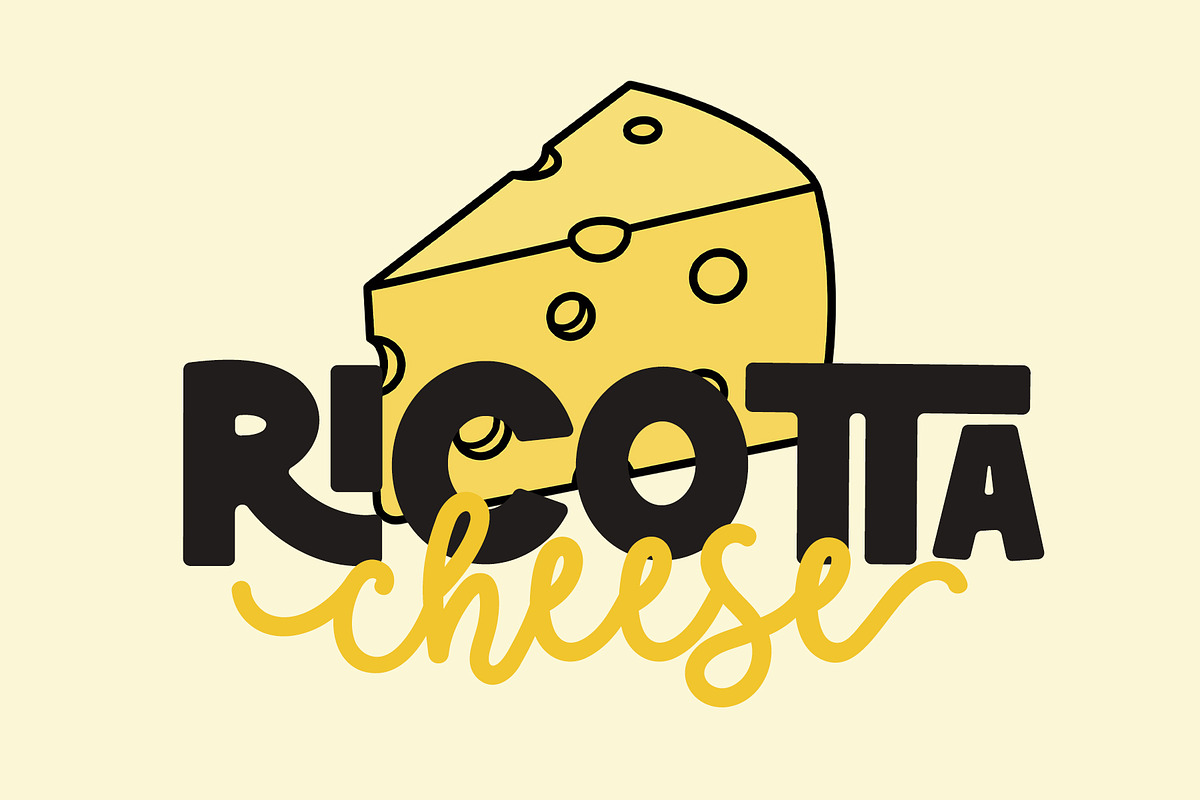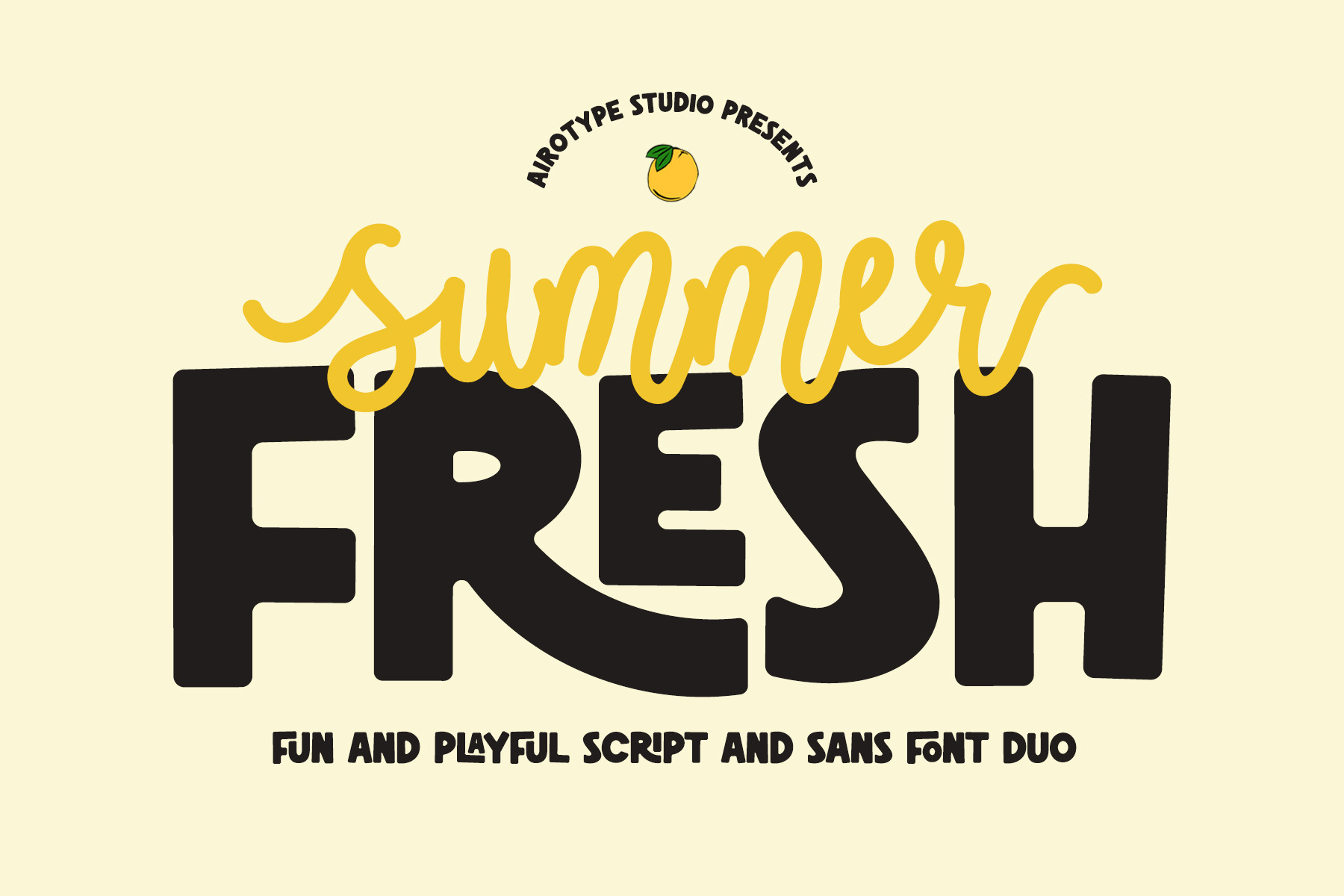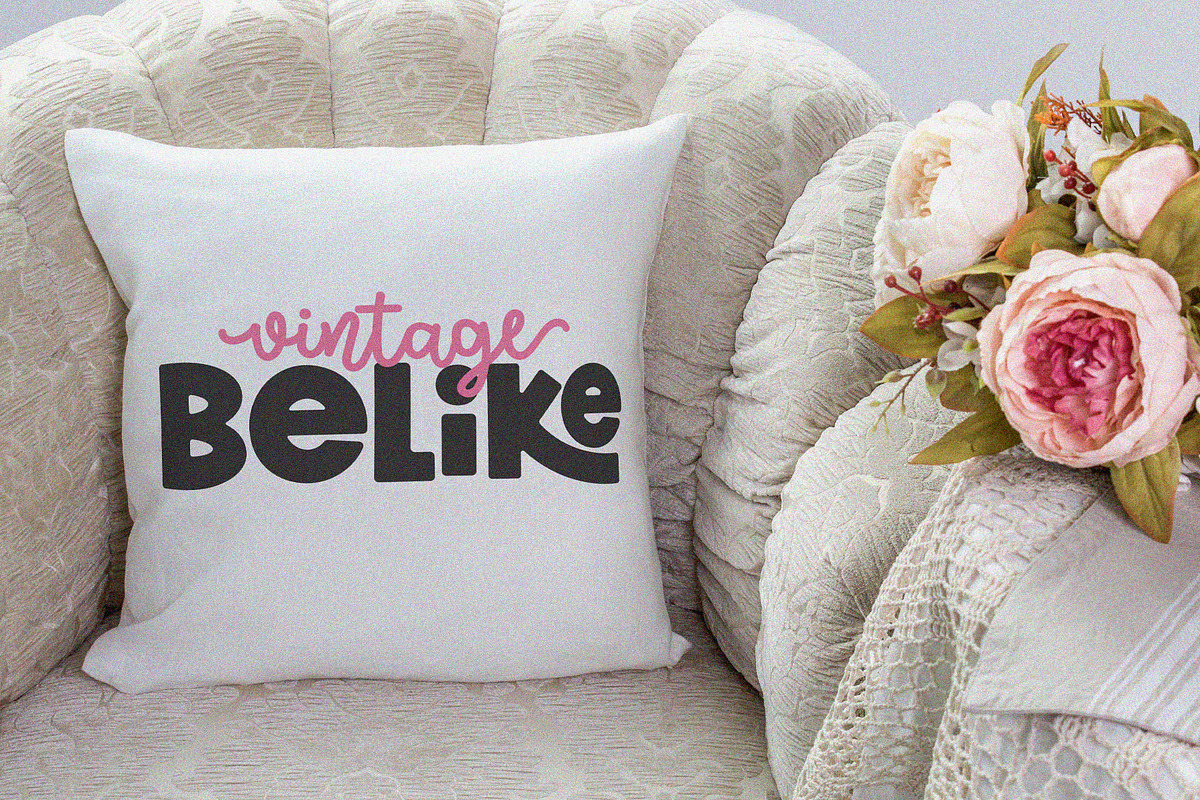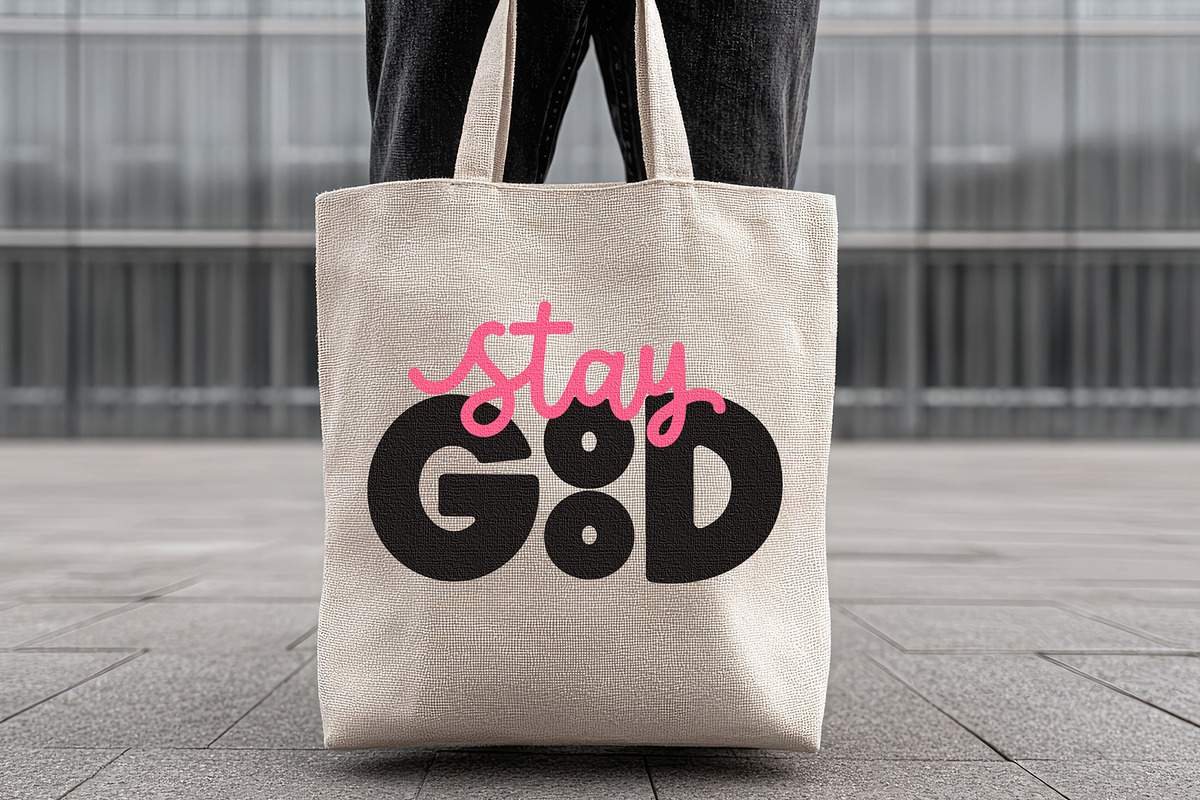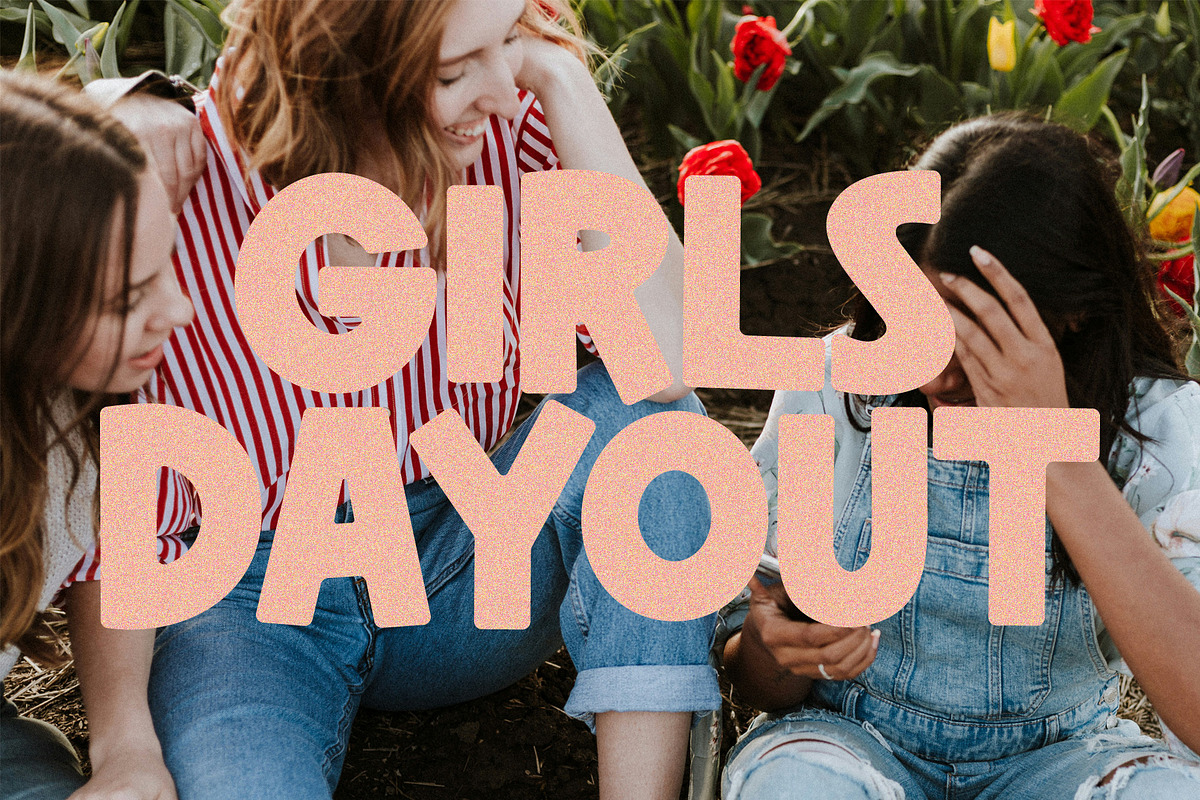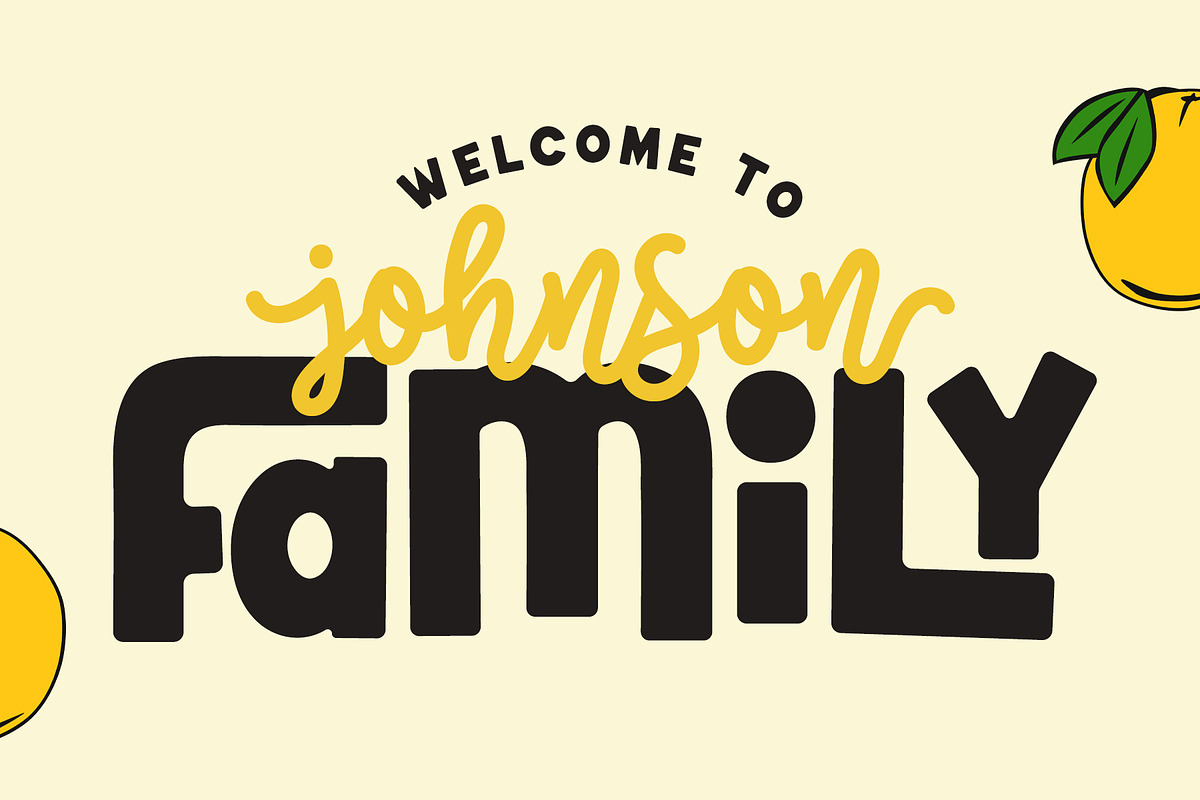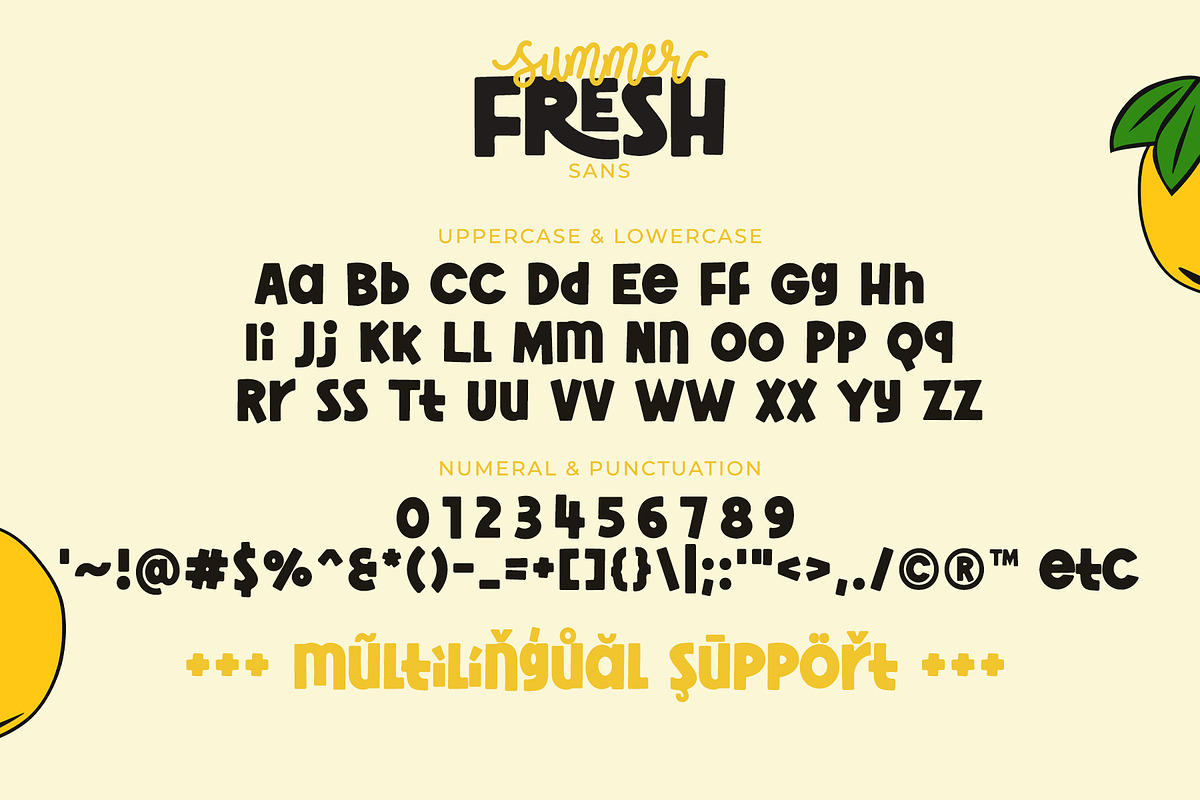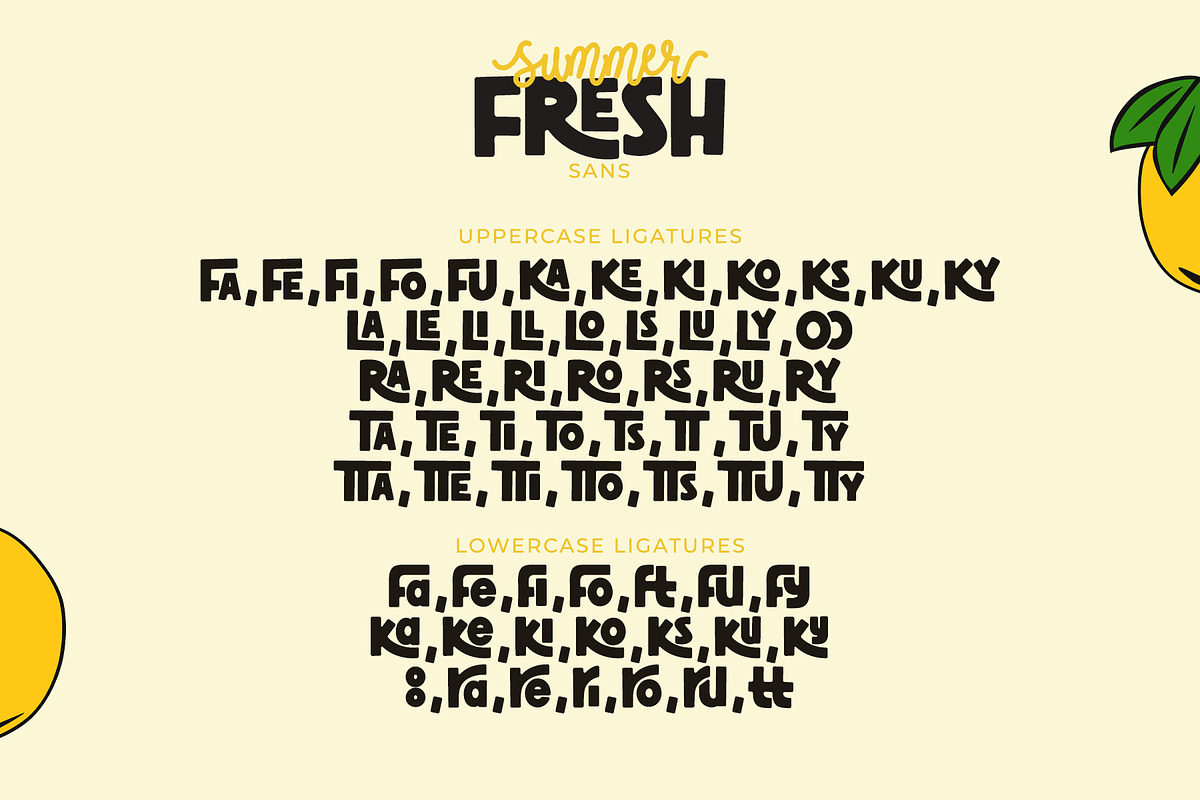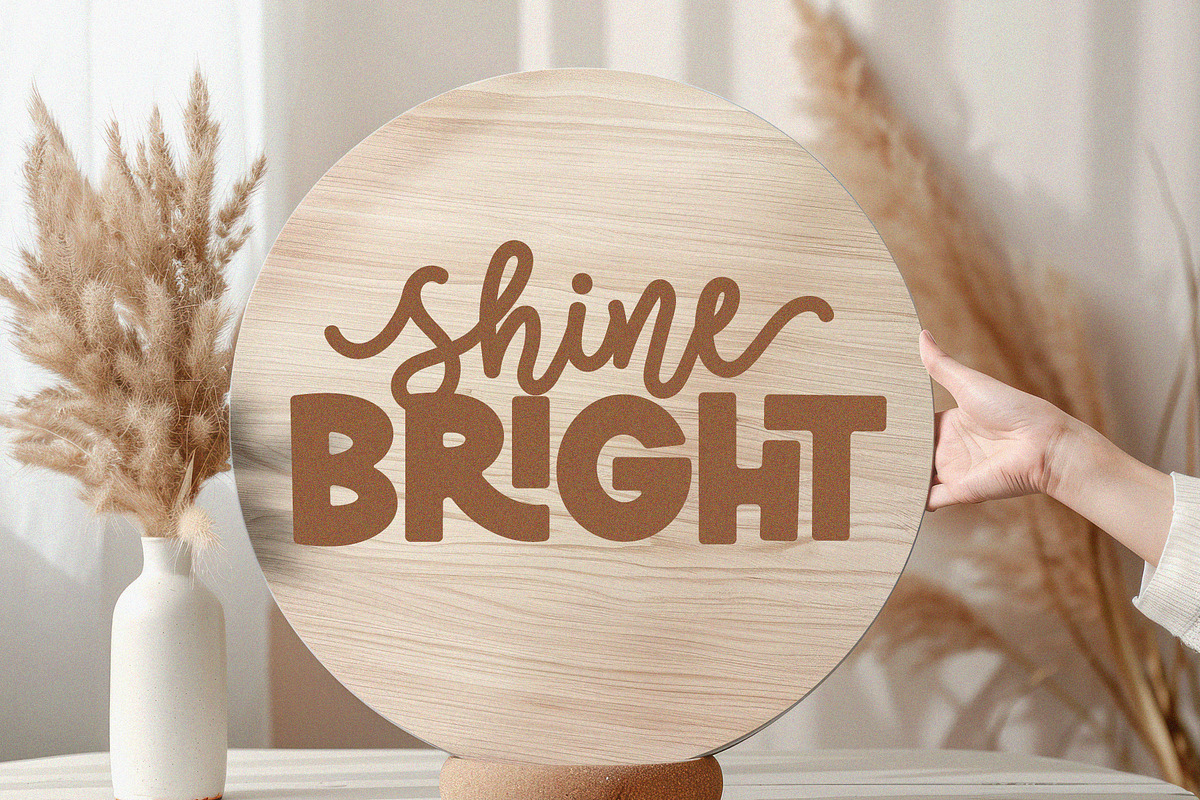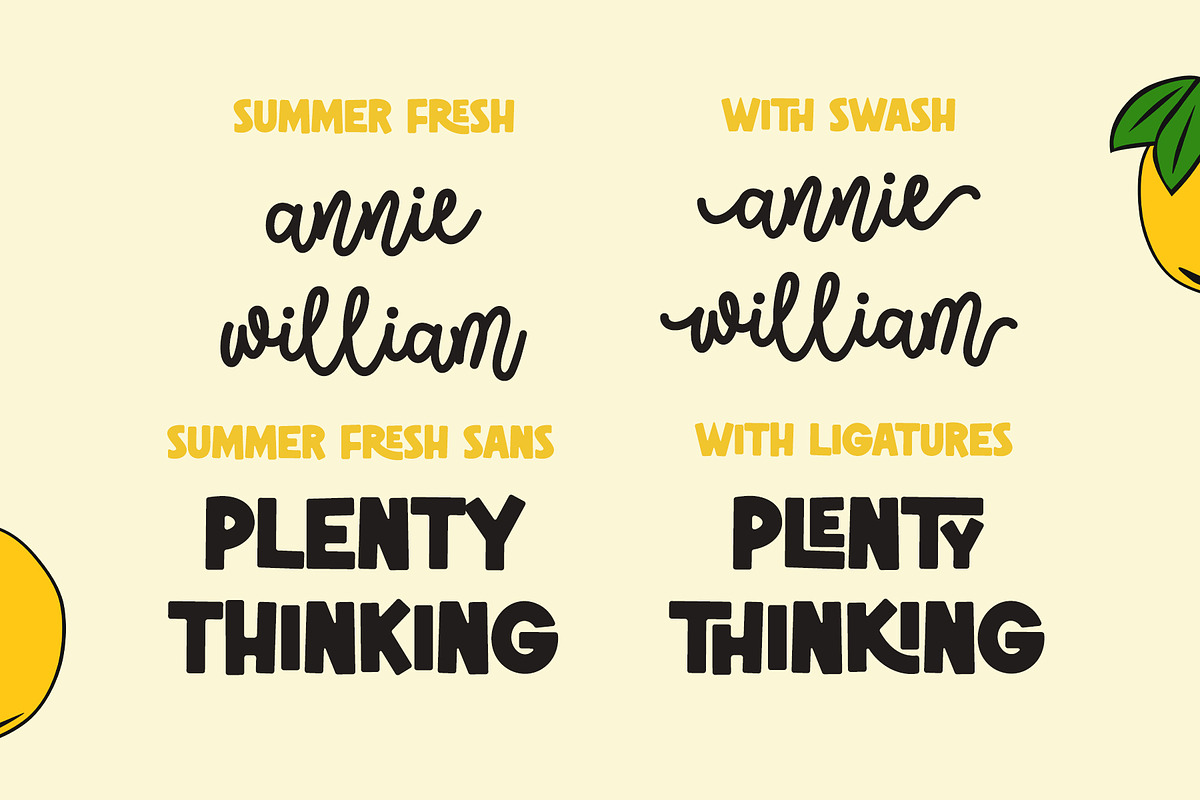
Summer Fresh - Chunky Font Duo
Summer Fresh is bold font duo pairing monoline script font and cute sans serif font.
The script one has short lowercase tail that will give more cheerful vibes into the design. The sans serif one has few ligatures and thick stroke, that radiates chunky and cheerful energy into the design.
This font duo can be used individually or be used as a pair.
Summer Fresh is pretty chunky font for wide ranges of design with cheerful and cute theme, such as birthday, logo, t-shirt, poster, display, crafting, sticker, keychain, tumbler, sublimation, branding, and many more.
Summer Fresh Sans (with ligature) and Summer Fresh Script (with lowercase swash)
Numeral and Punctuation
Most Multilingual Accent